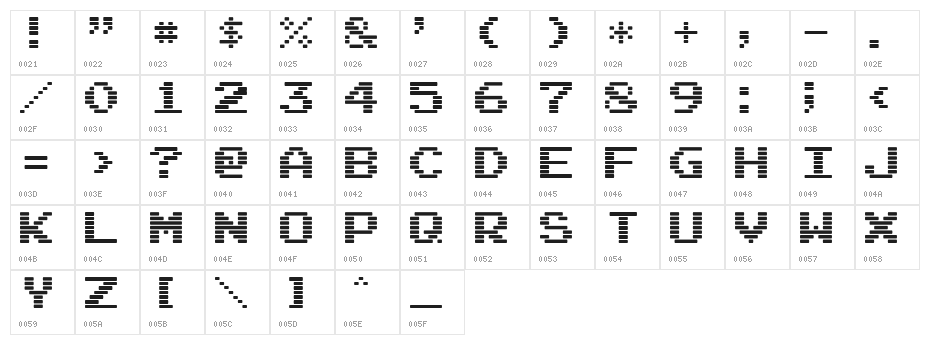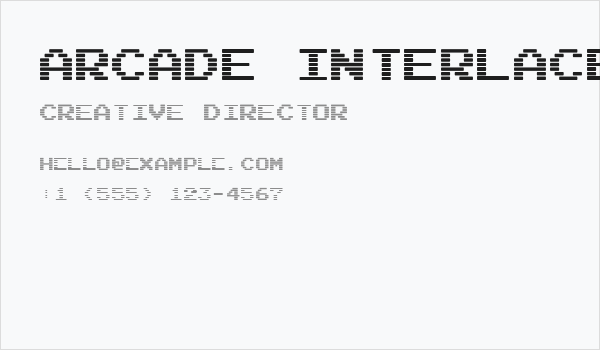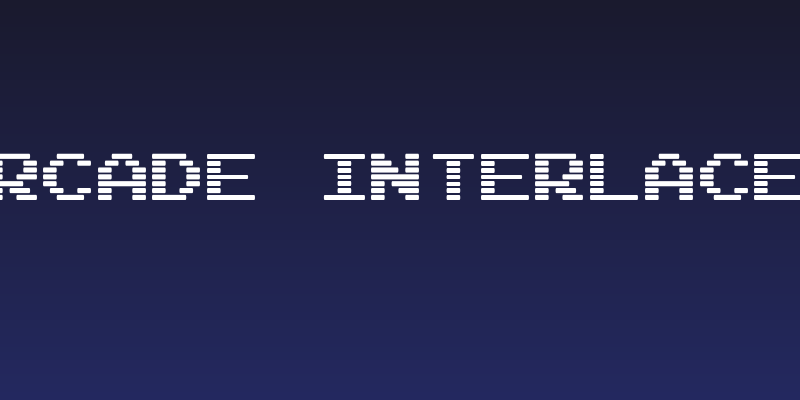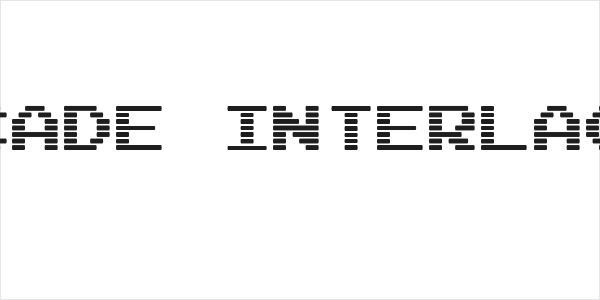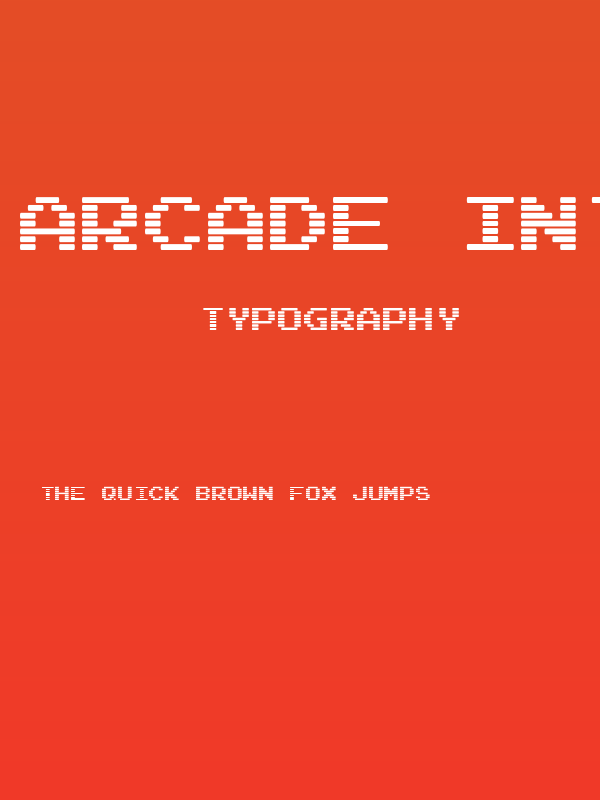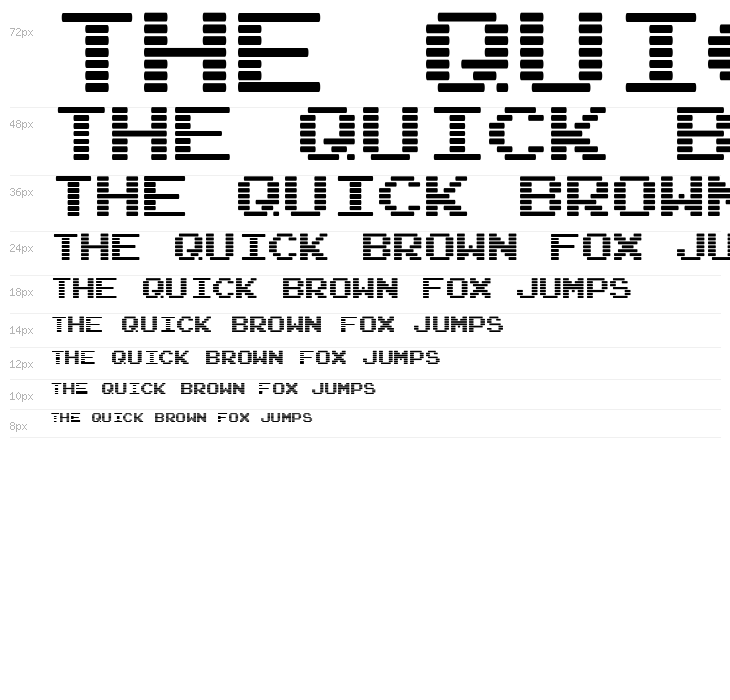
Arcade Interlaced Font
Arcade Interlaced Description
This font features a distinct interlaced design reminiscent of classic arcade games. Each character is constructed with horizontal lines that create a digital, pixelated effect. The uppercase and lowercase letters maintain a consistent style, providing a cohesive look. The numerals and special characters follow the same interlaced pattern, ensuring uniformity across all glyphs. This font evokes a sense of nostalgia, making it ideal for projects that aim to capture the retro gaming aesthetic.
| Overall Style | Retro, Digital |
| Proposed Projects | Perfect for video game designs, retro-themed posters, digital art projects, and any creative work that seeks to evoke a nostalgic gaming atmosphere. |